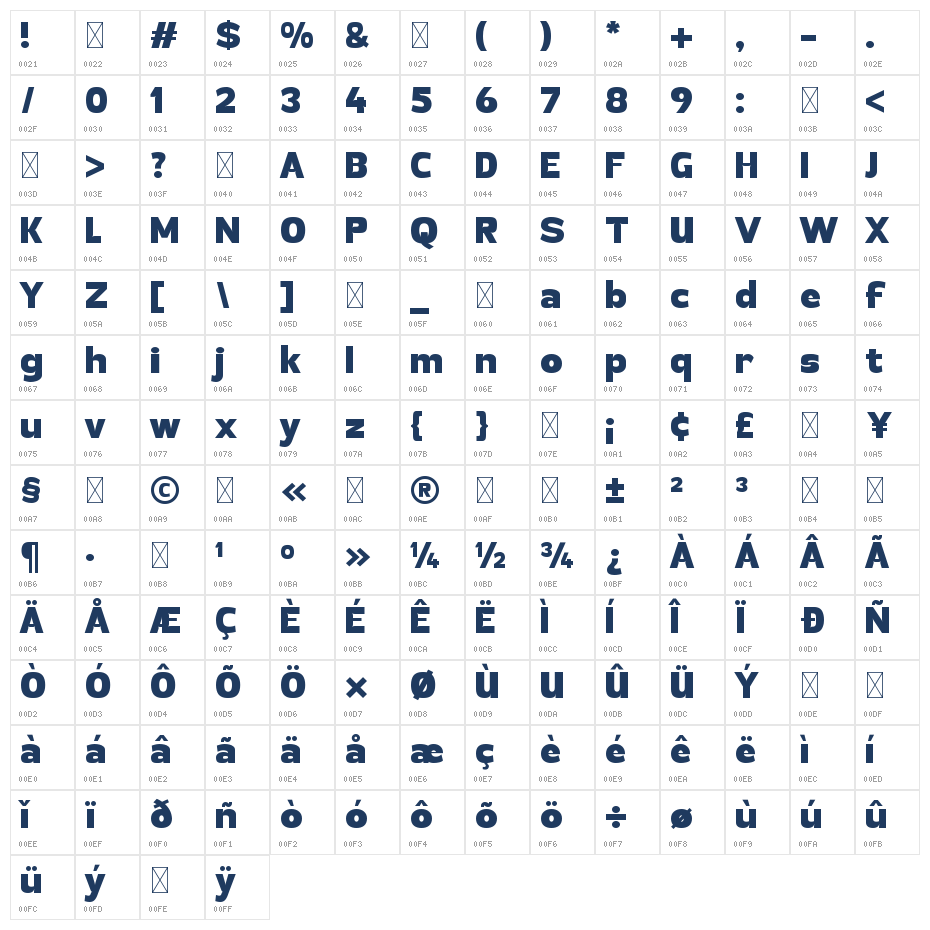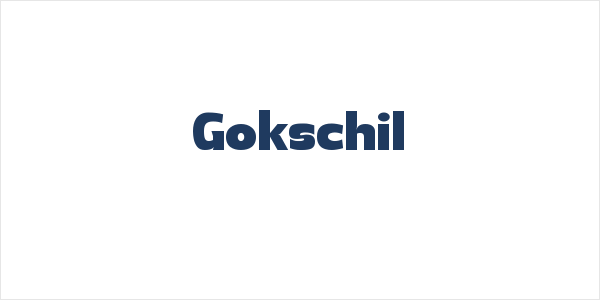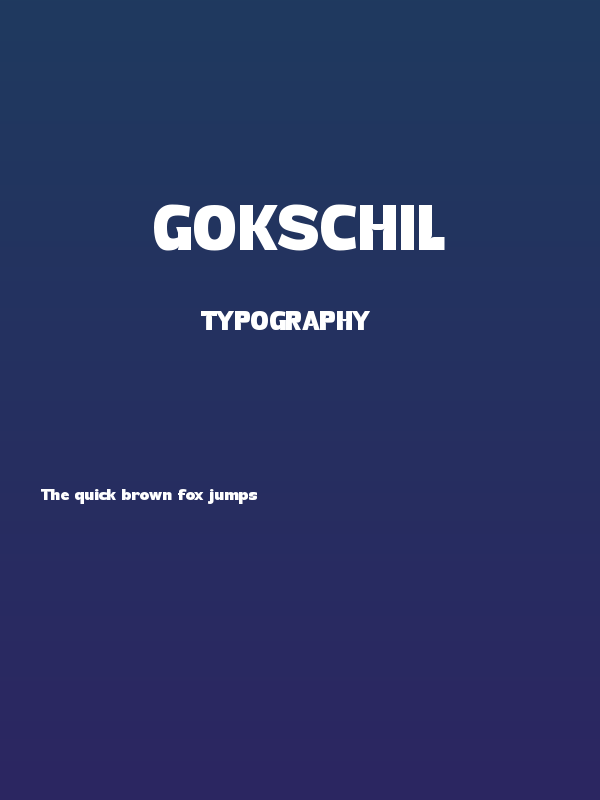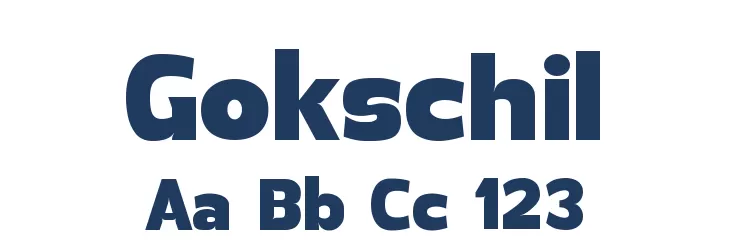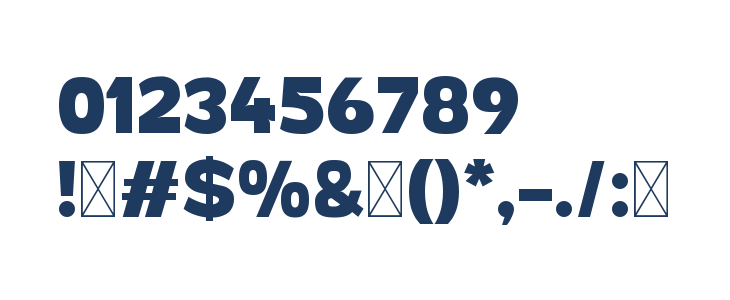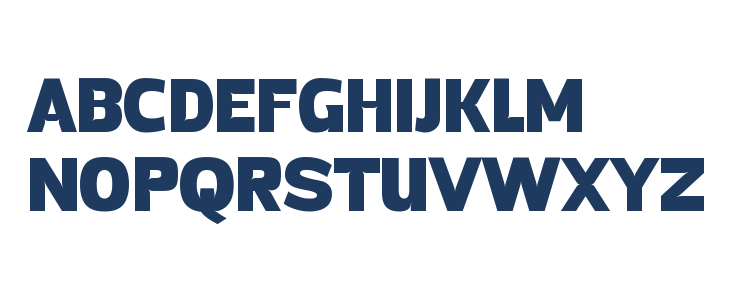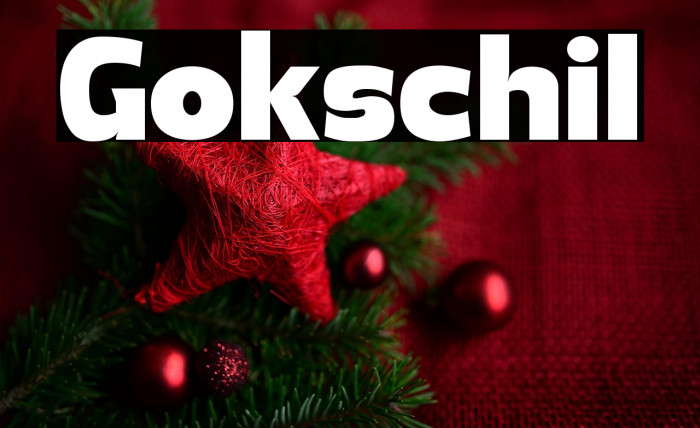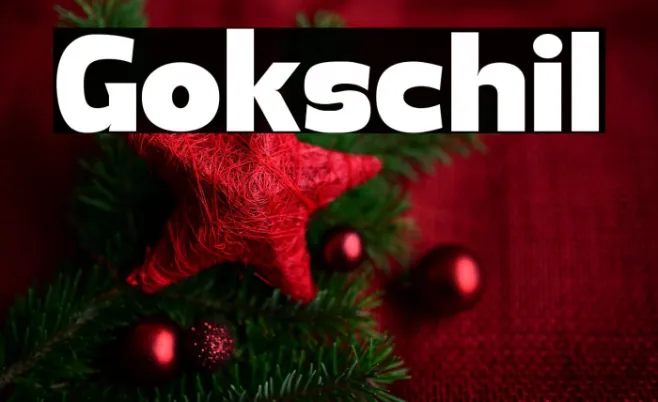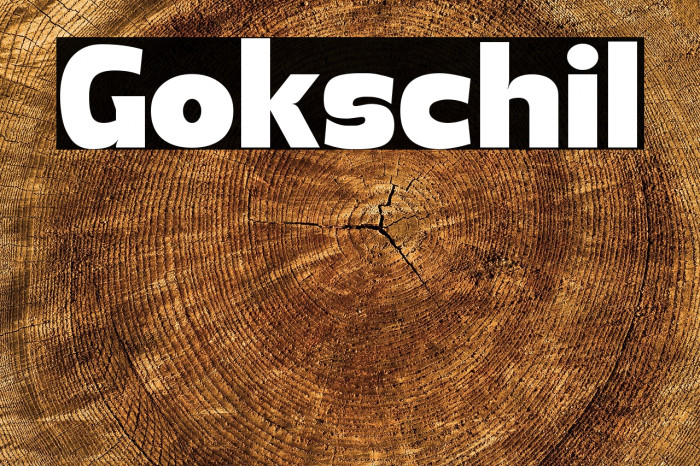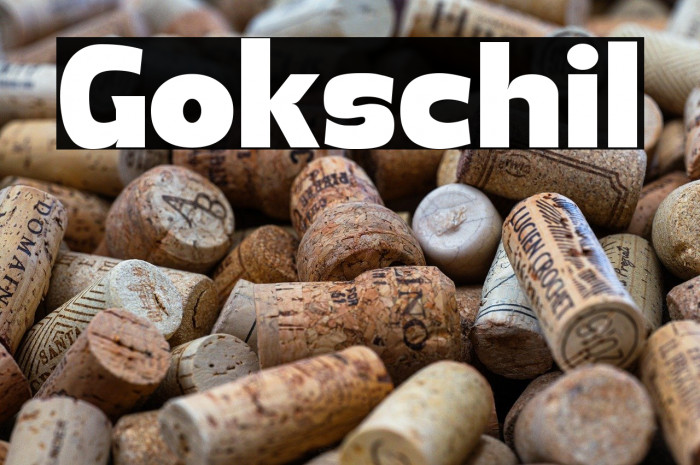
Gokschil Font
Gokschil Description
Bold, chunky sans-serif font with a playful and modern appearance, featuring thick strokes and rounded edges.
| Overall Style | Modern, Bold, Playful |